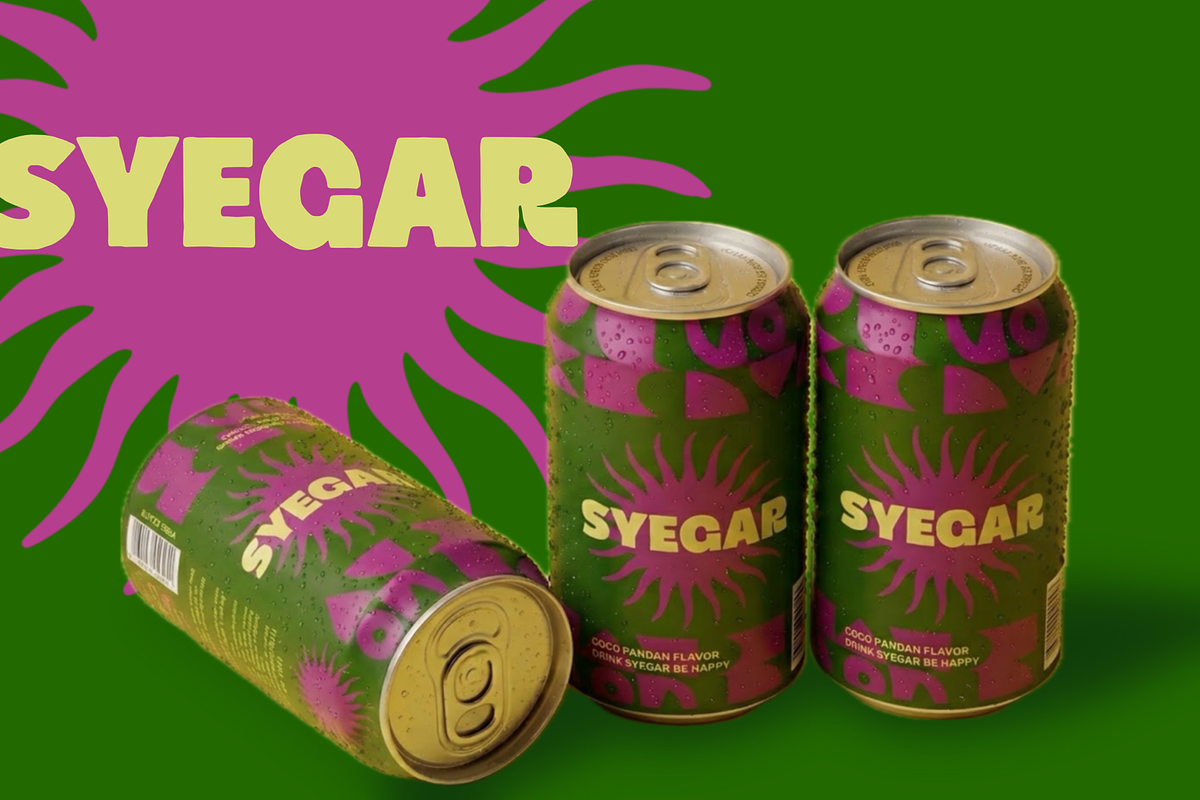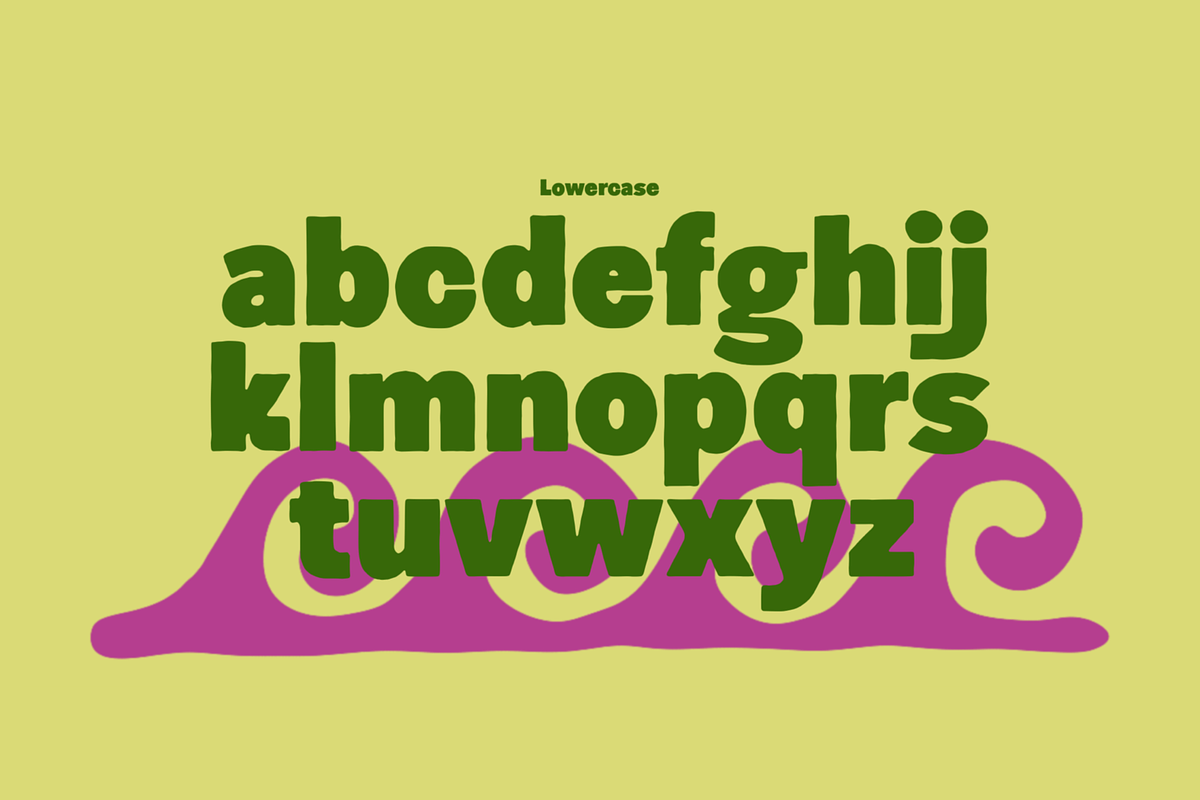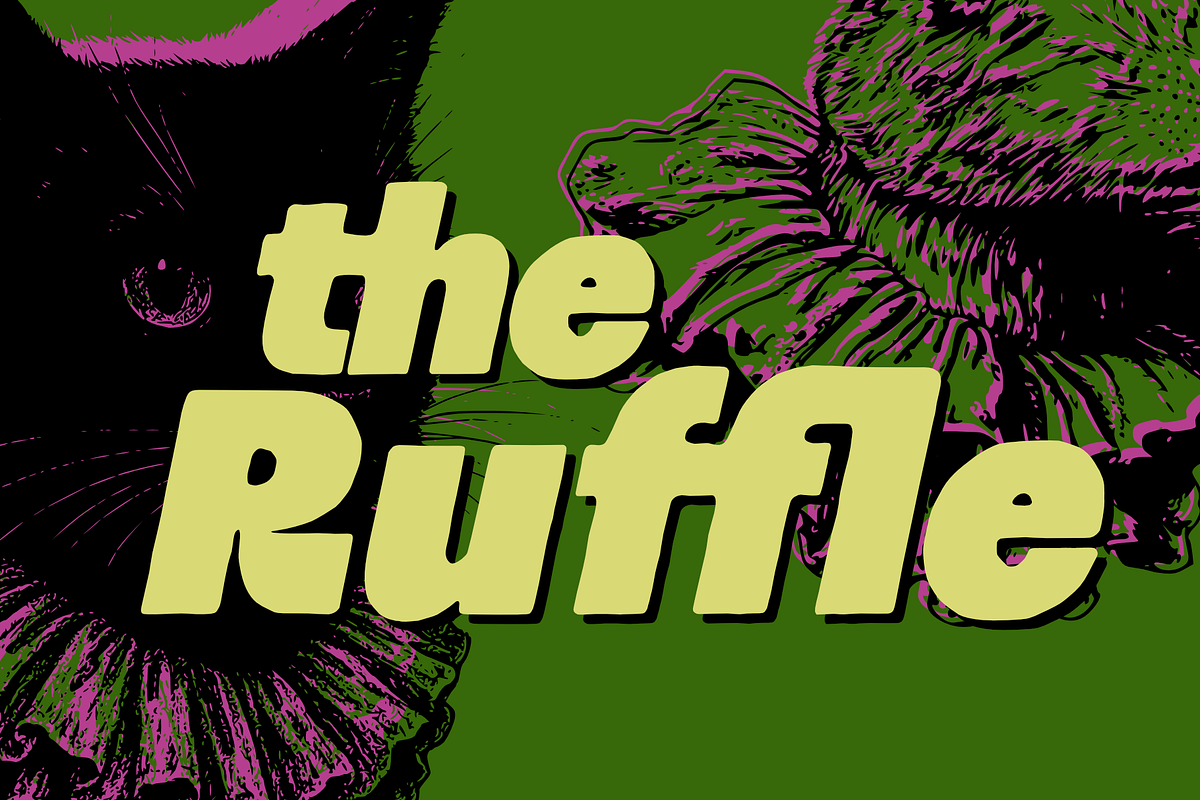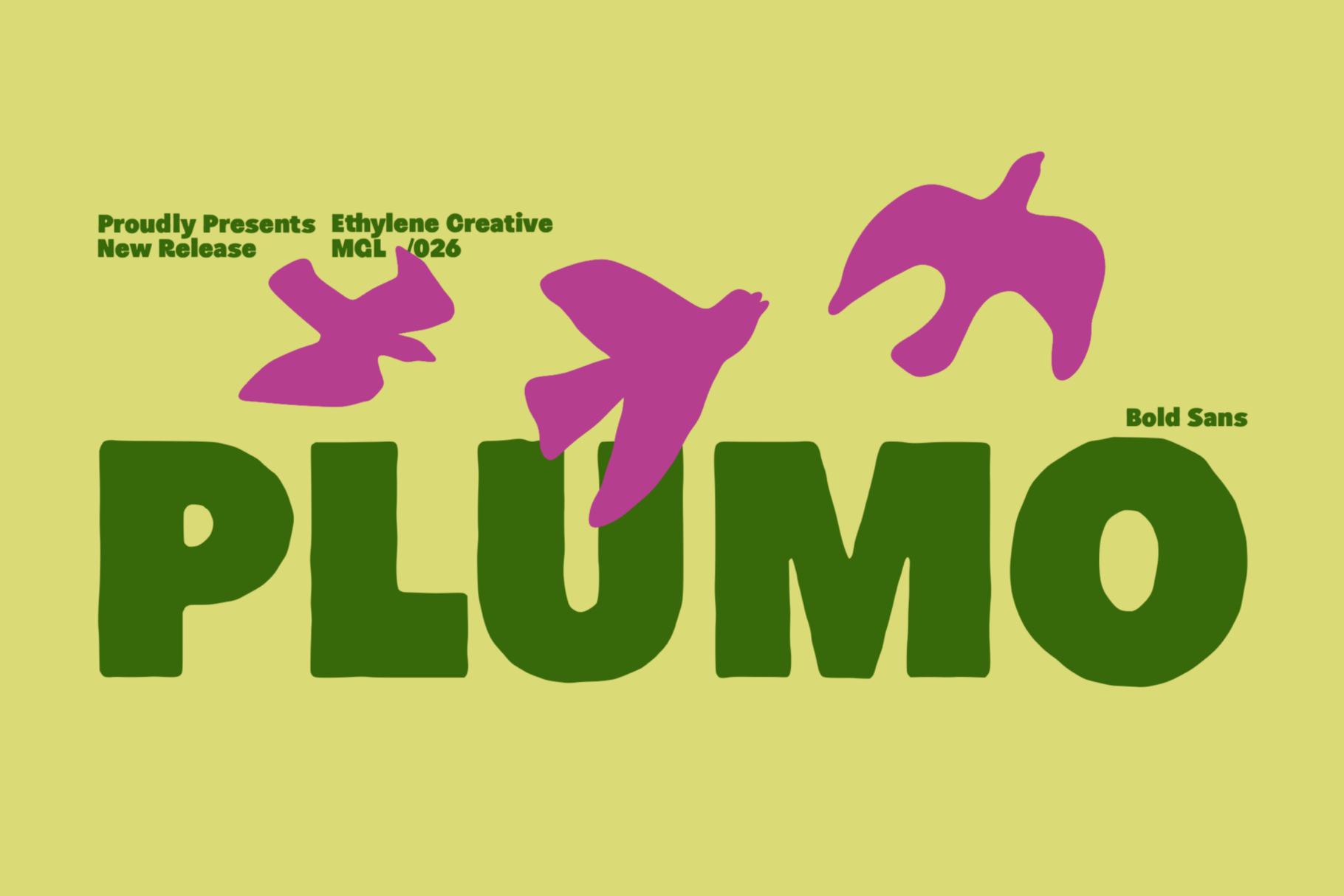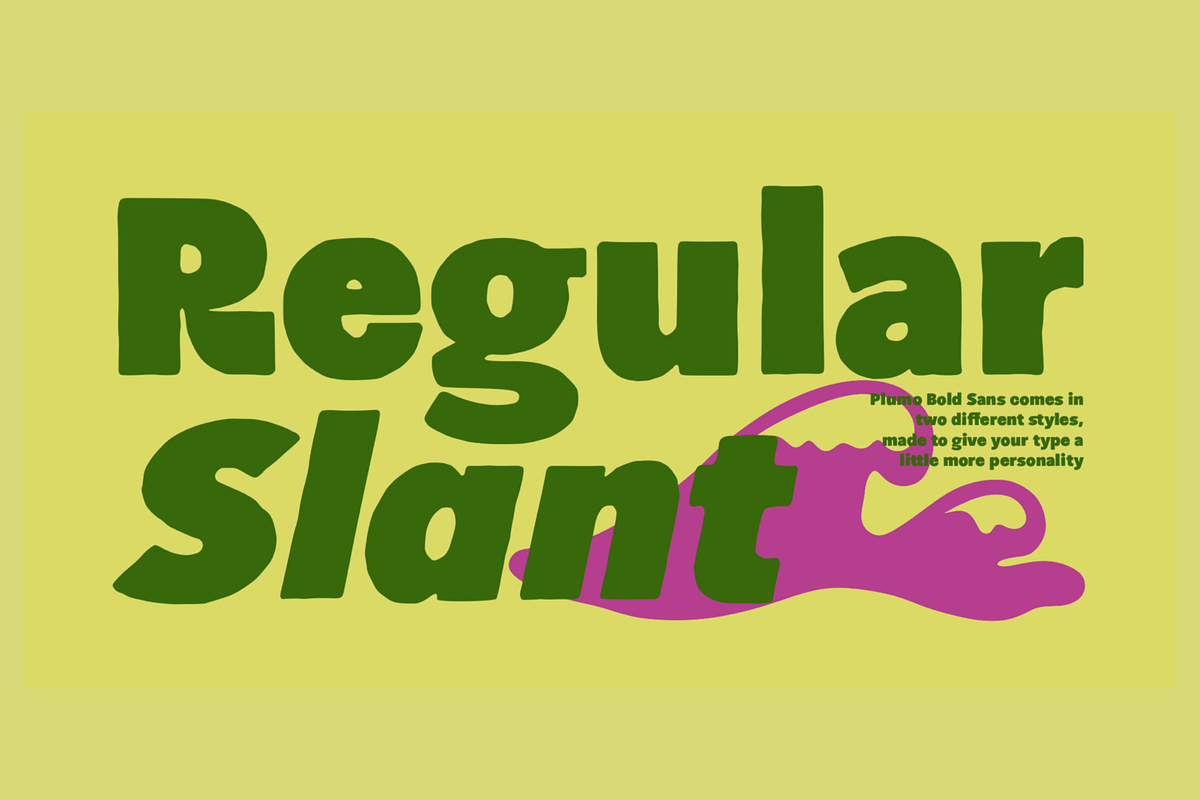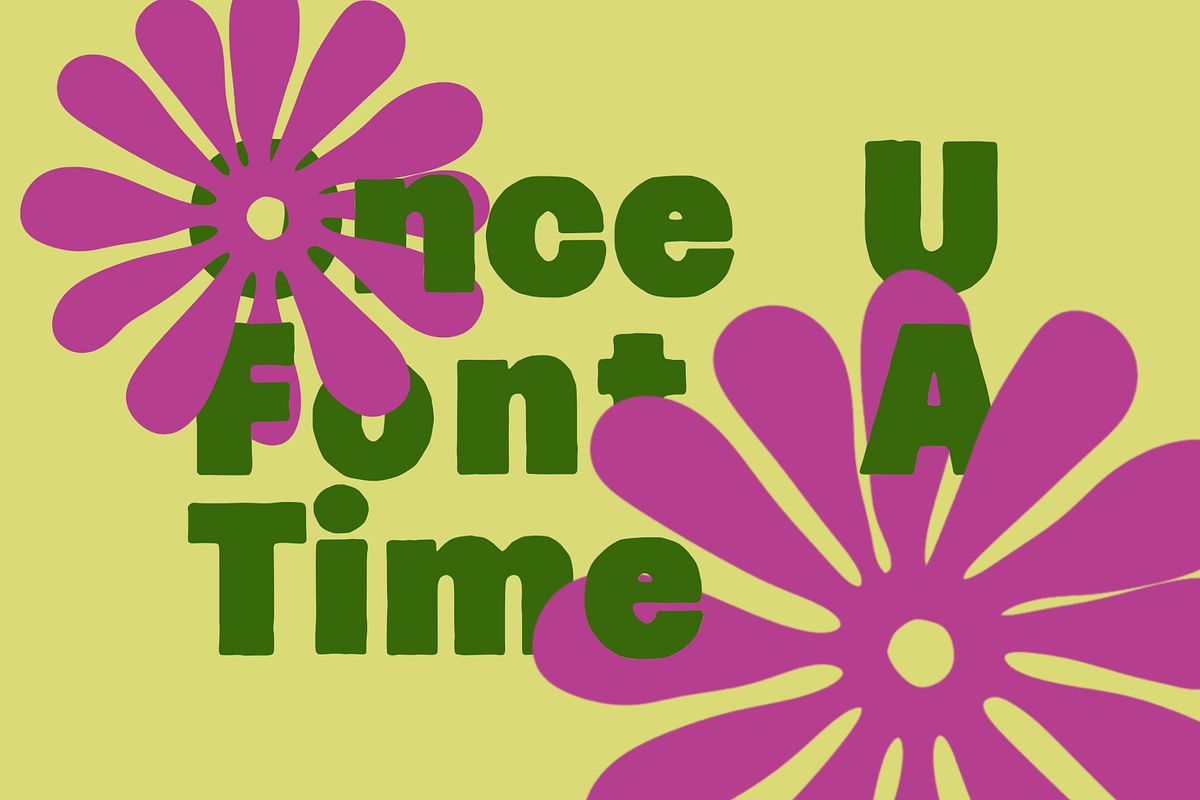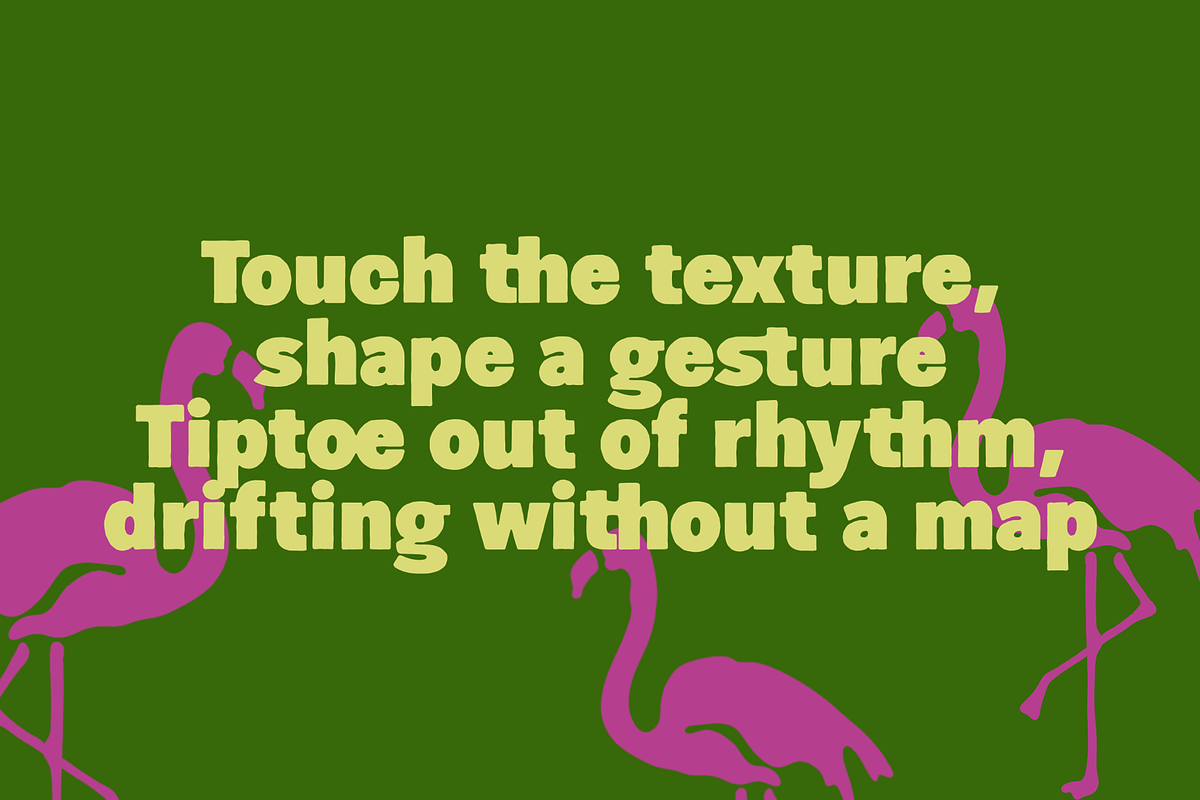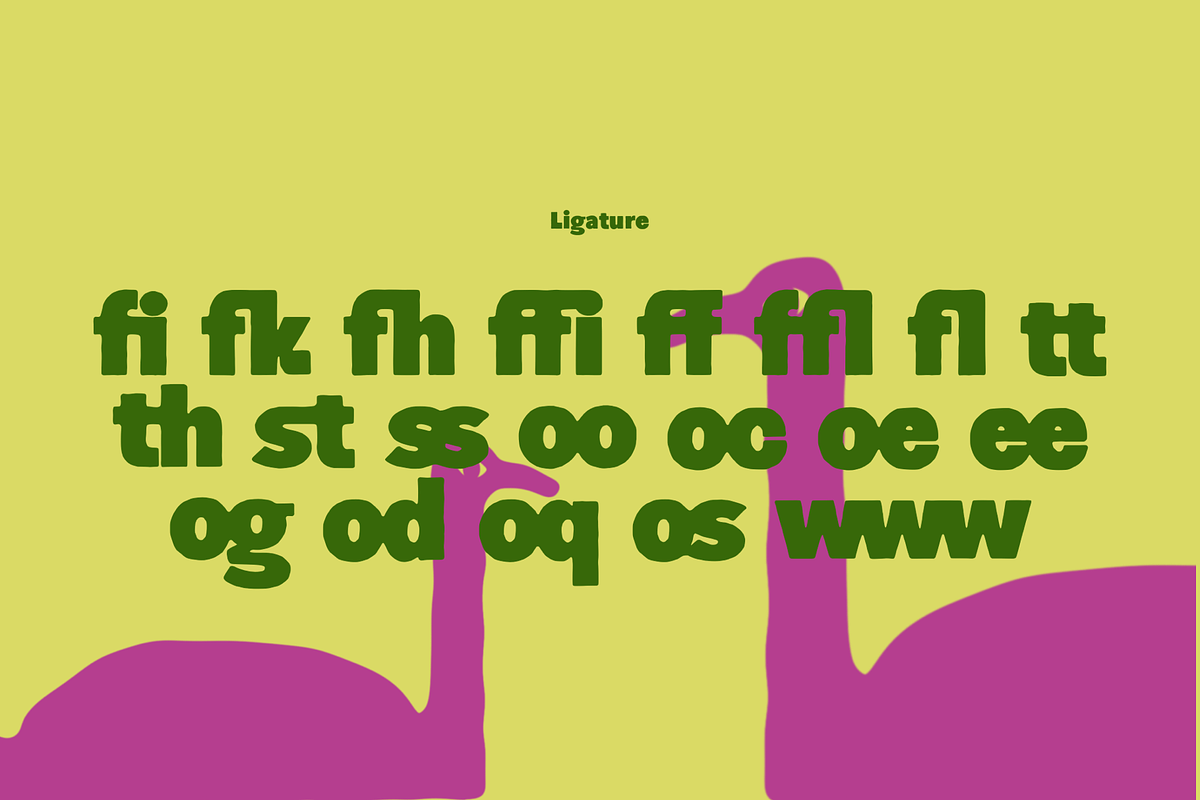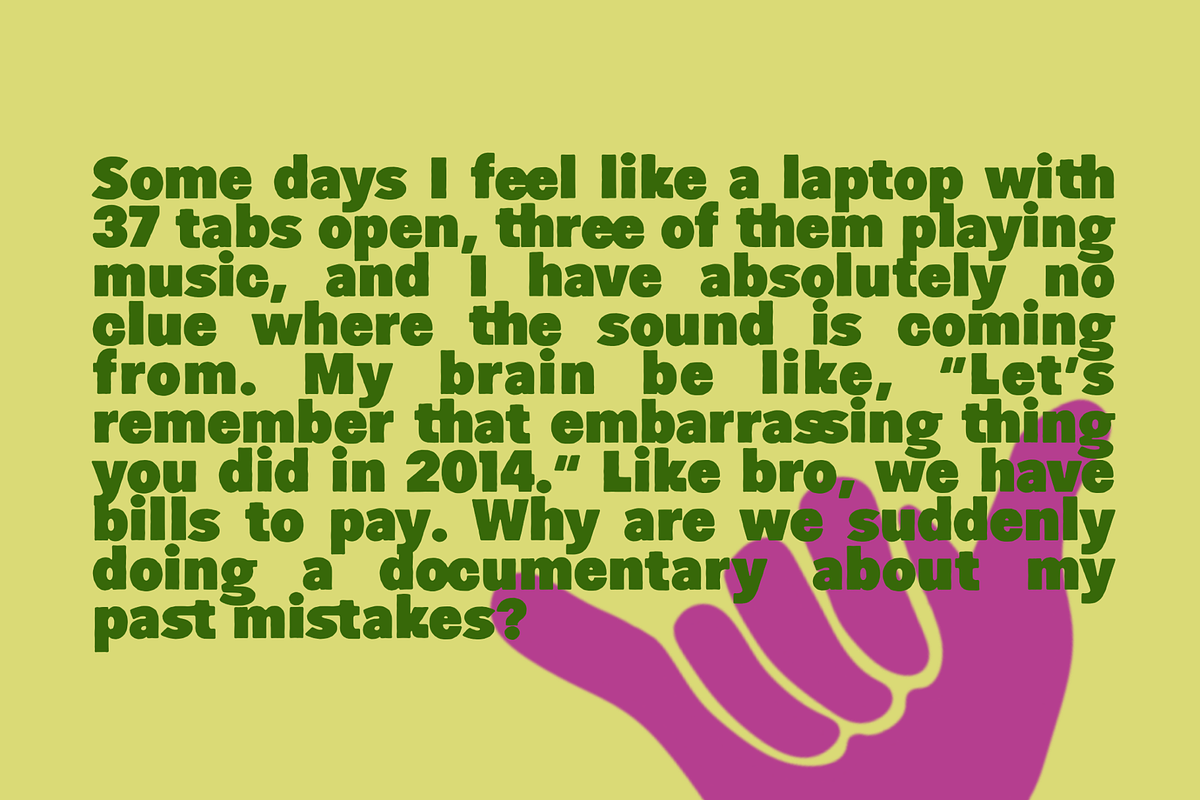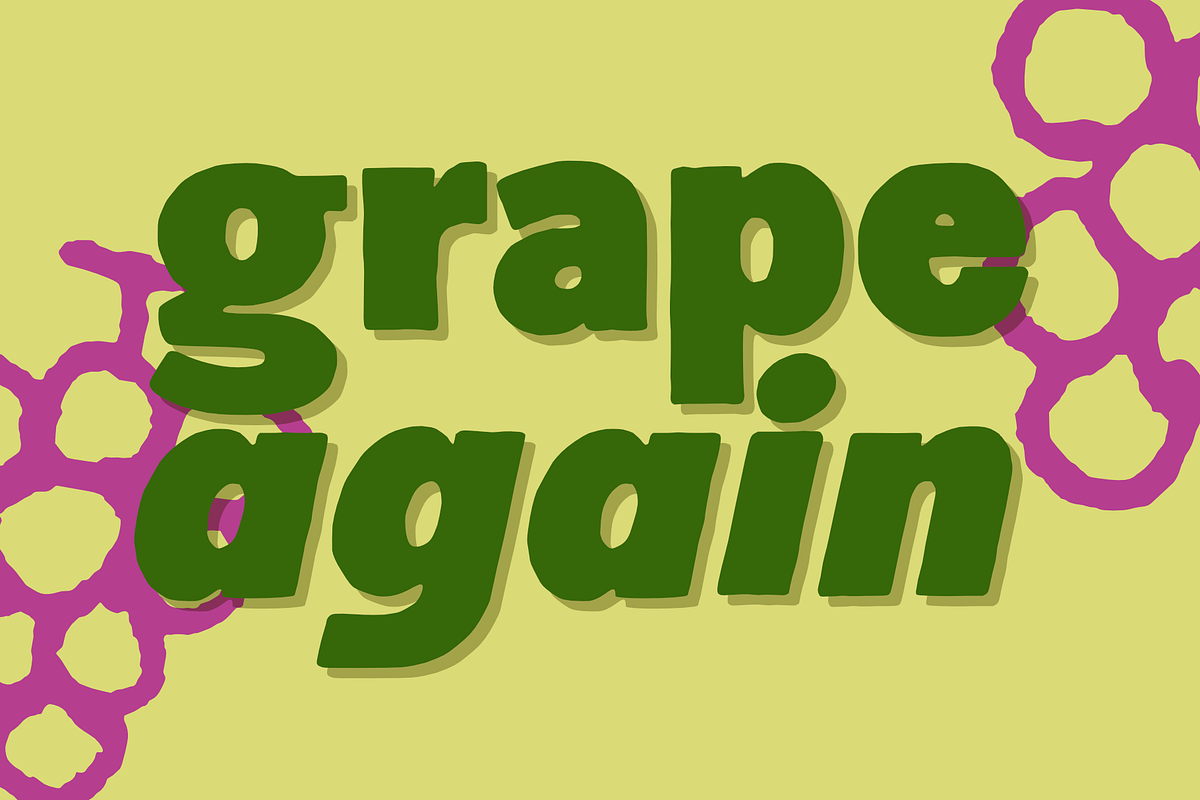
Plumo - Playful Chunky Display Font
Meet Plumo, an expressive display font family designed to give your typography a strong dose of personality.
With chunky organic forms, soft curves, irregular proportions, and quirky details, Plumo feels like lettering with a life of its own. Its playful construction makes it perfect for projects that need to feel fun, friendly, funky, and unconventional.
The family comes with Regular and Slant styles, allowing you to mix and match upright and angled lettering while keeping a consistent visual identity.
But there's more under the hood.
Contextual Alternates automatically introduce alternative characters based on their surrounding letters, helping your words feel less repetitive and more naturally hand-crafted.
Ligatures provide additional custom letter combinations for selected characters, giving you even more ways to create unique and expressive lettering.
From logos and branding to posters, packaging, apparel, stickers, children's designs, social media graphics, and headlines, Plumo is built for making a statement.